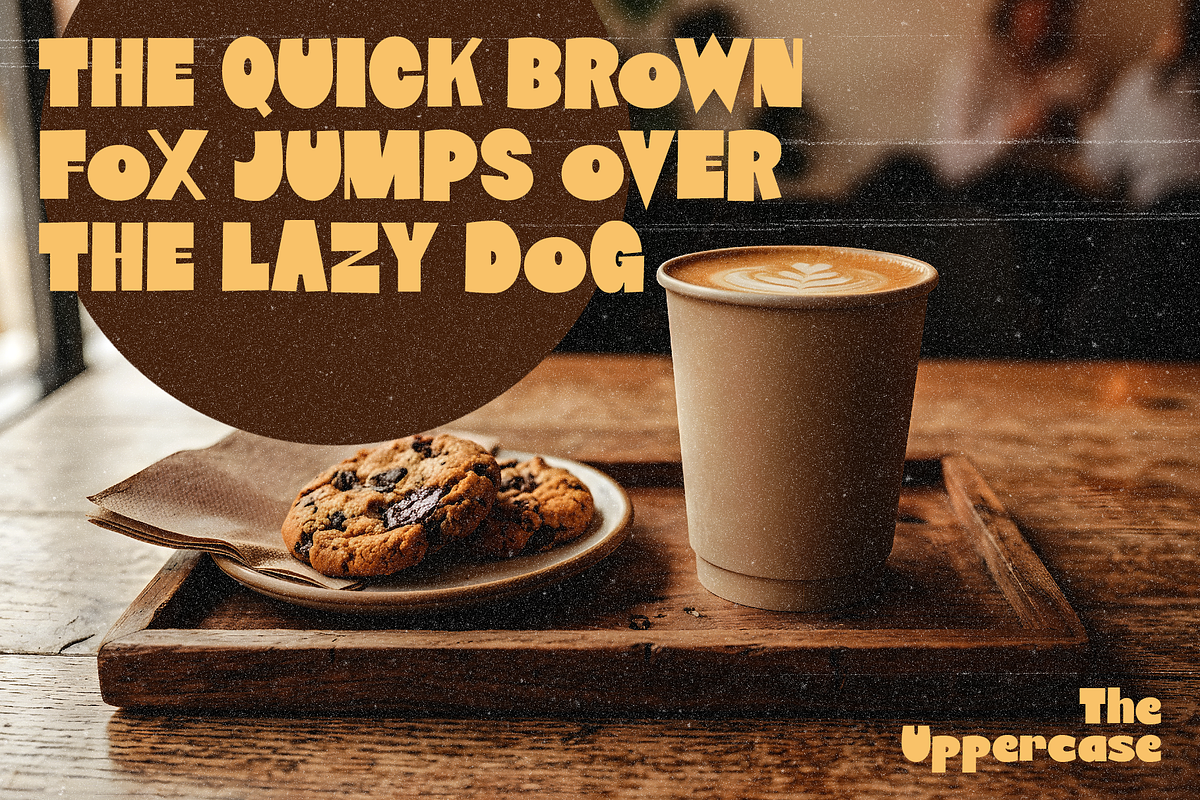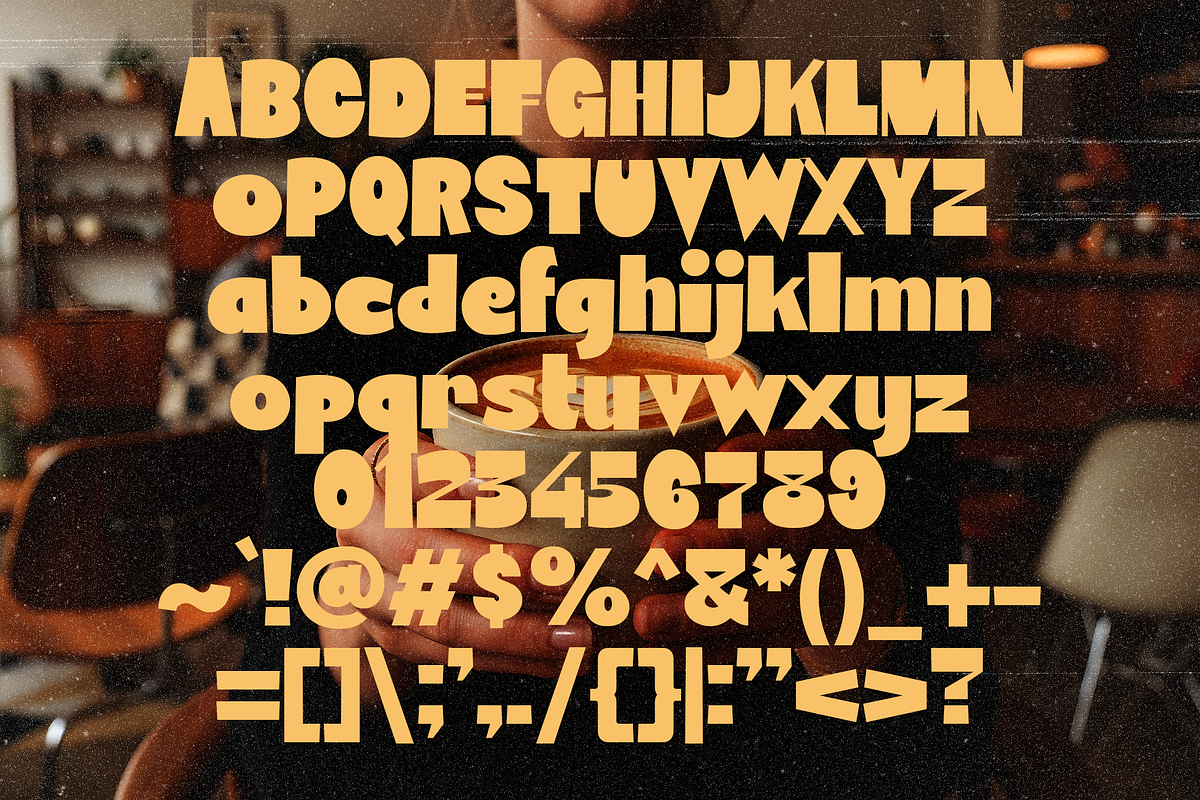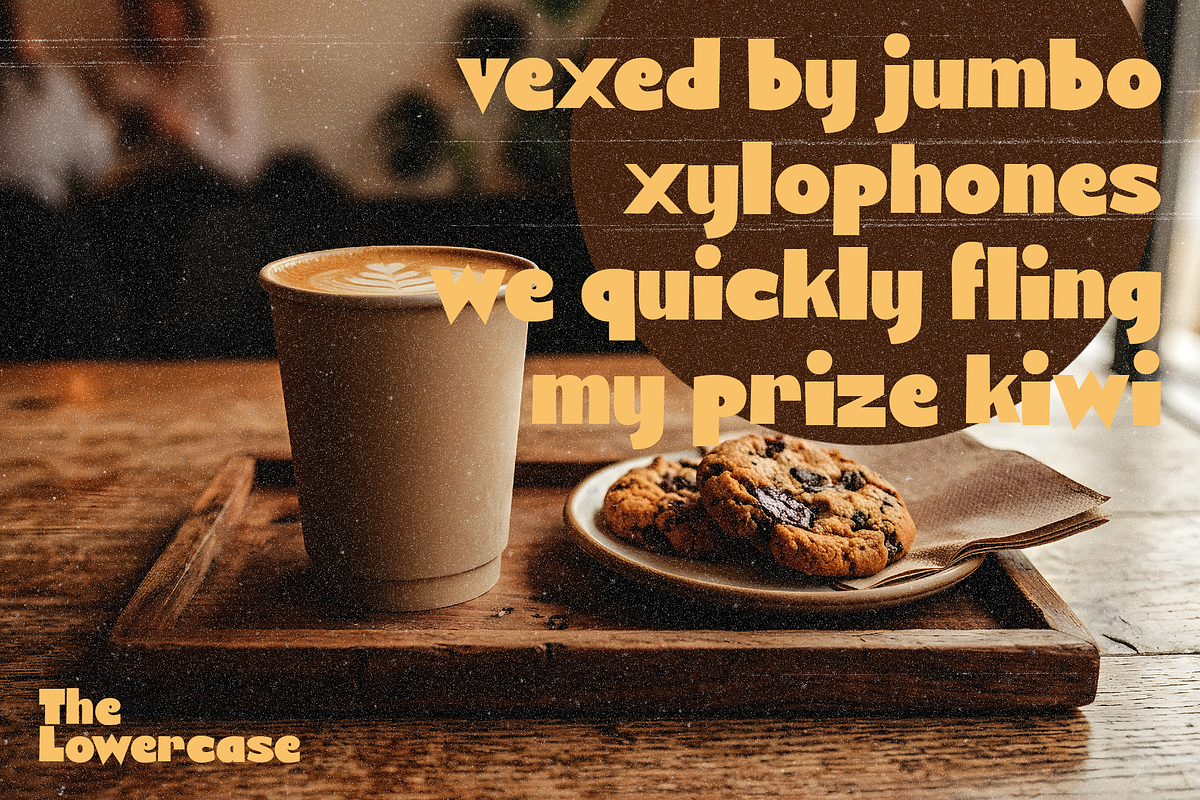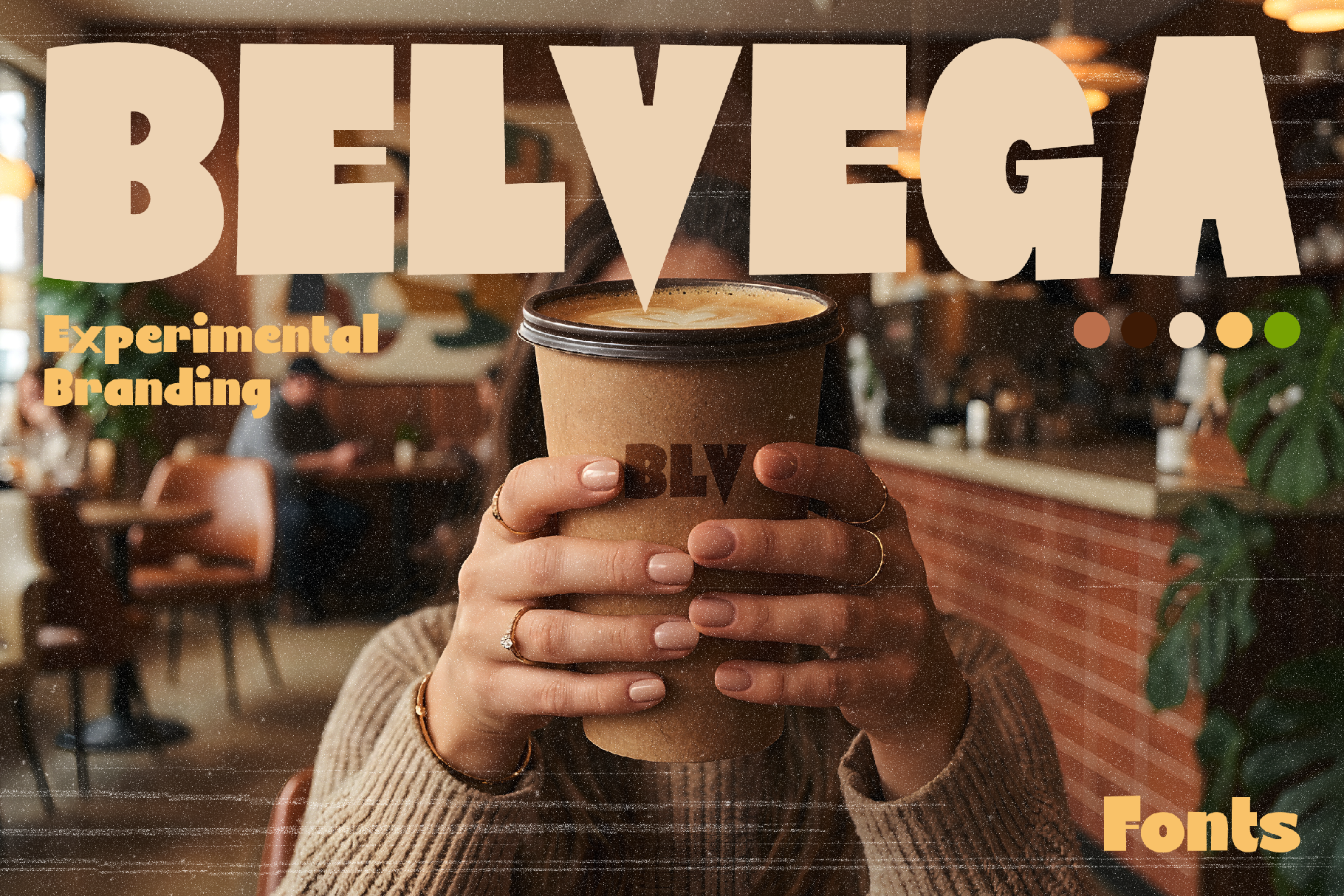
Belvega - Experimental Branding Font
Elevate your design language with Belvega, a display font that thrives in the tension between bold structure and delicate precision. Designed for those who find beauty in the unconventional, Belvega challenges traditional typography by intentionally breaking the rules of stroke weight and balance.
The result? A high-contrast sans-serif that feels both architectural and organic. Its heavy, grounded forms are punctuated by sharp, experimental thin lines, creating a visual rhythm that demands attention without sacrificing aesthetic sophistication.
Designed for Disruptive Branding Belvega isn't just a typeface; it’s a visual identity in a box. It was crafted specifically for experimental branding where personality is paramount. Whether you are launching a third-wave coffee shop, a high-end fashion editorial, or a modern lifestyle brand, Belvega provides that "unique-at-first-sight" impact.
As seen in our coffee branding presentation, the font balances a raw, earthy warmth with a sharp, avant-garde edge. It’s a perfect match for:
Logo Design & Wordmarks
Product Labels
Social Media Headlines
Editorial Layouts
Poster Art & Modern Signage
Product Features
Experimental Geometry: Unique thick-and-thin interplay for a custom, hand-crafted feel.
Artistic Rule-Breaking: Subversive stroke placements that create a signature look.
Versatile Aesthetics: Perfectly suited for both minimalist-modern and vintage-retro designs.